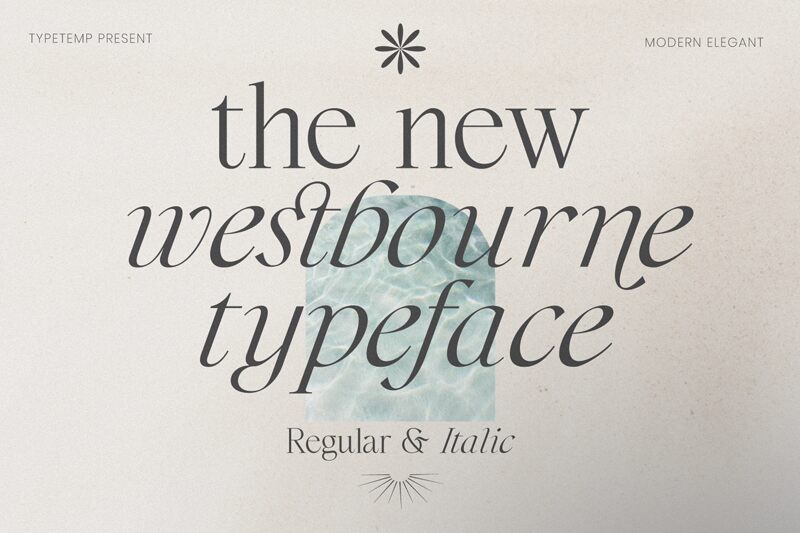
Westbourne Serif Italic, designed by Typetemp Studio, is a sophisticated and elegant font that exudes class and refinement. Its semi-light weight and italic styling make it an excellent choice for high-end branding projects such as luxury fashion labels or upscale hotels. The serif font style adds a touch of traditional elegance to any design project, making it suitable for use in printed materials such as wedding invitations or high-end corporate brochures. With its understated beauty and timeless appeal, Westbourne Serif Italic is the perfect choice for designers looking to add a touch of sophistication to their next project.
Westbourne Serif Free Italic